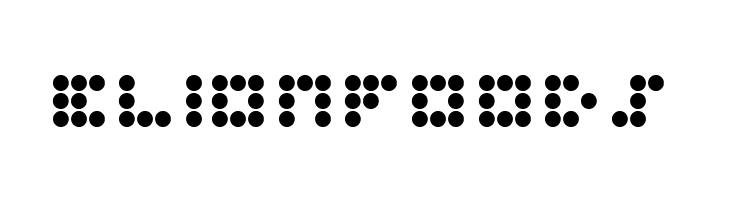
Liontinela Realise Font
- Font: Liontinela Realise
( Fonts by Blue Vinyl - Jess Latham - www.bvfonts.com )
A retro dot matrix style font with a pixelated, digital display appearance.